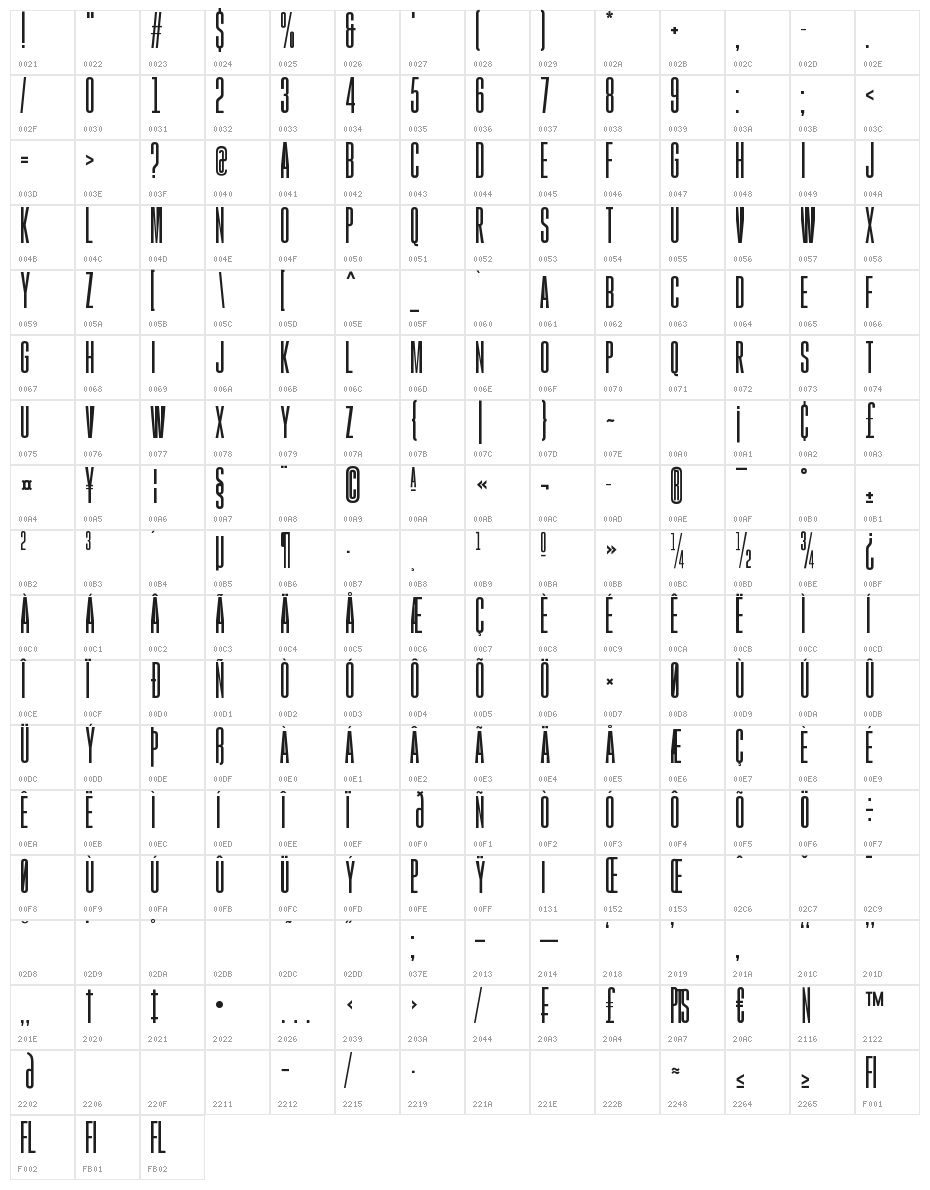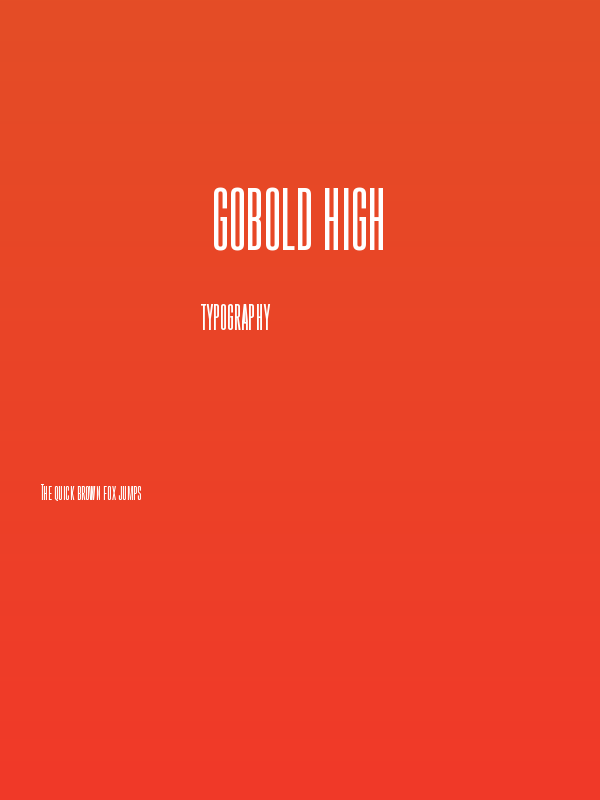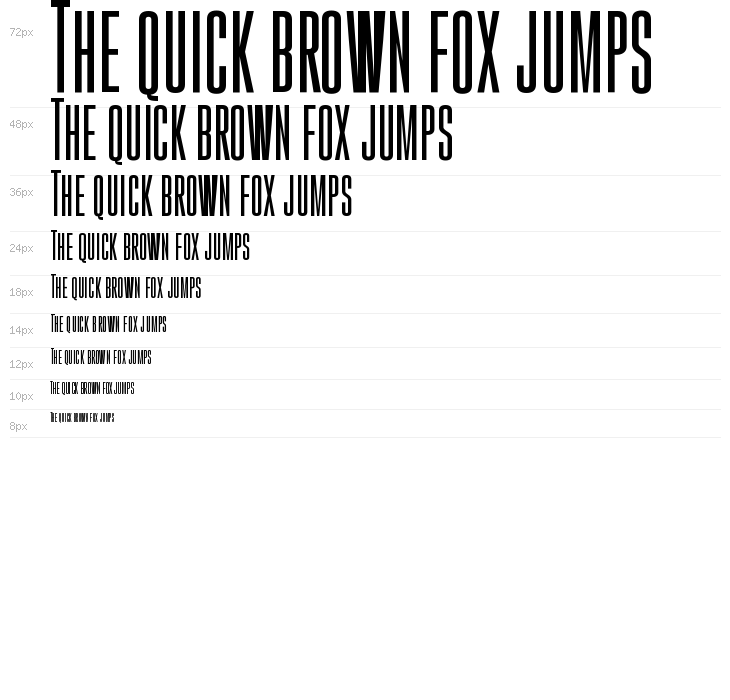
Gobold High Font
Gobold High Description
This font features a bold and tall design with a condensed width, giving it a striking and impactful appearance. The characters are uniformly tall and narrow, creating a sense of height and elegance. The uppercase and lowercase letters maintain a consistent style, with clean lines and sharp edges. The numerals and special characters follow the same design principles, ensuring a cohesive look across all elements. This font's high contrast in stroke thickness adds to its boldness, making it ideal for attention-grabbing designs.
Proposed ProjectsIdeal for posters, headlines, branding, and any design requiring a strong visual impact.